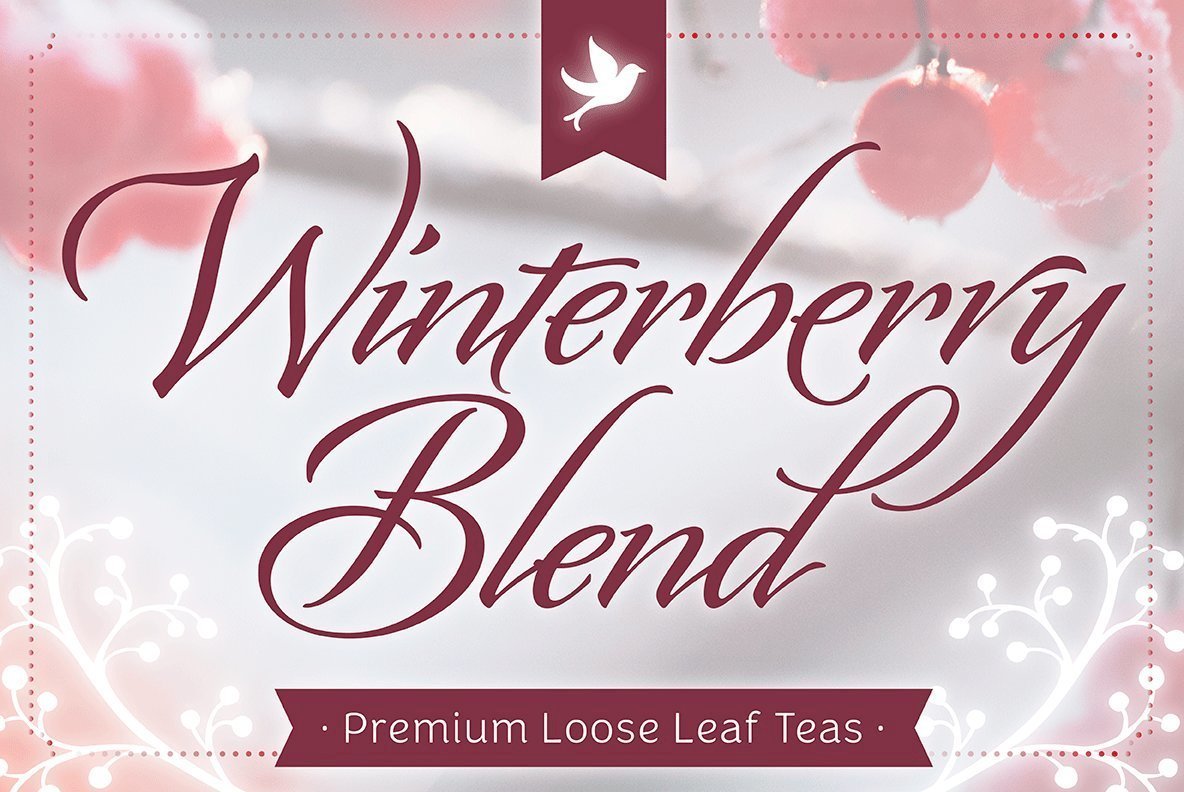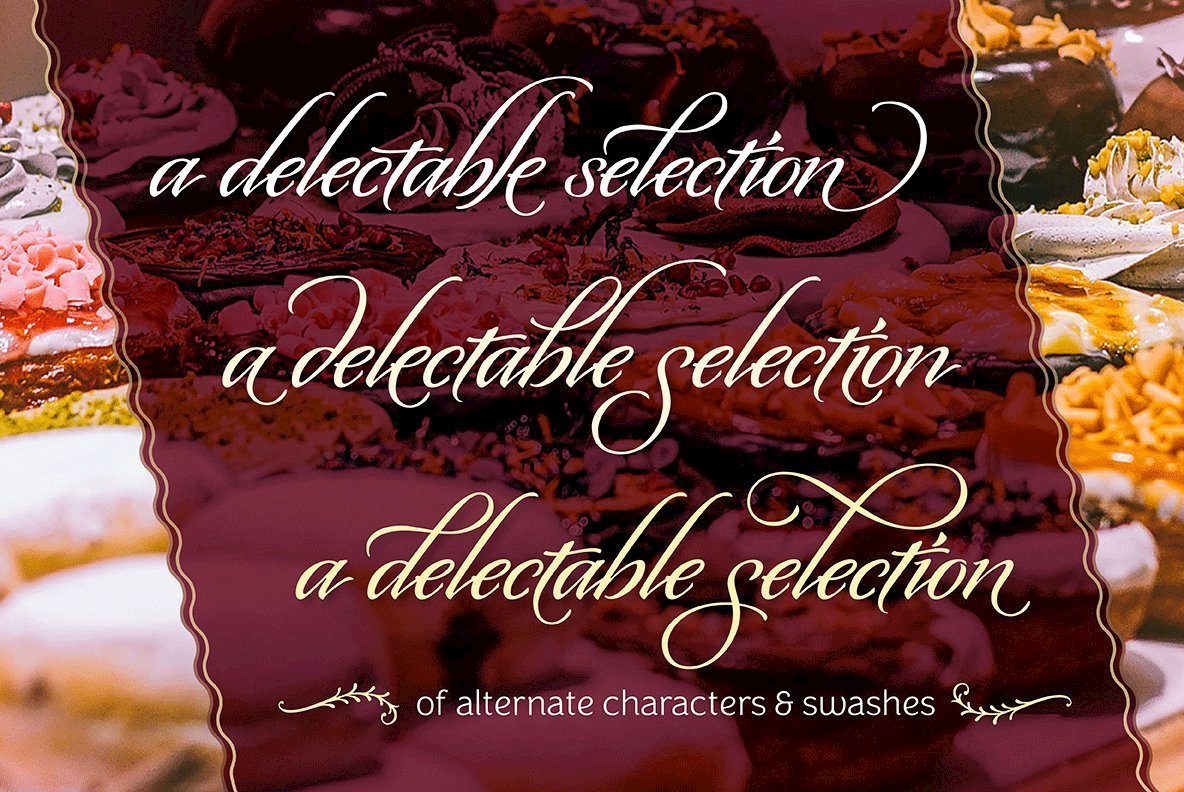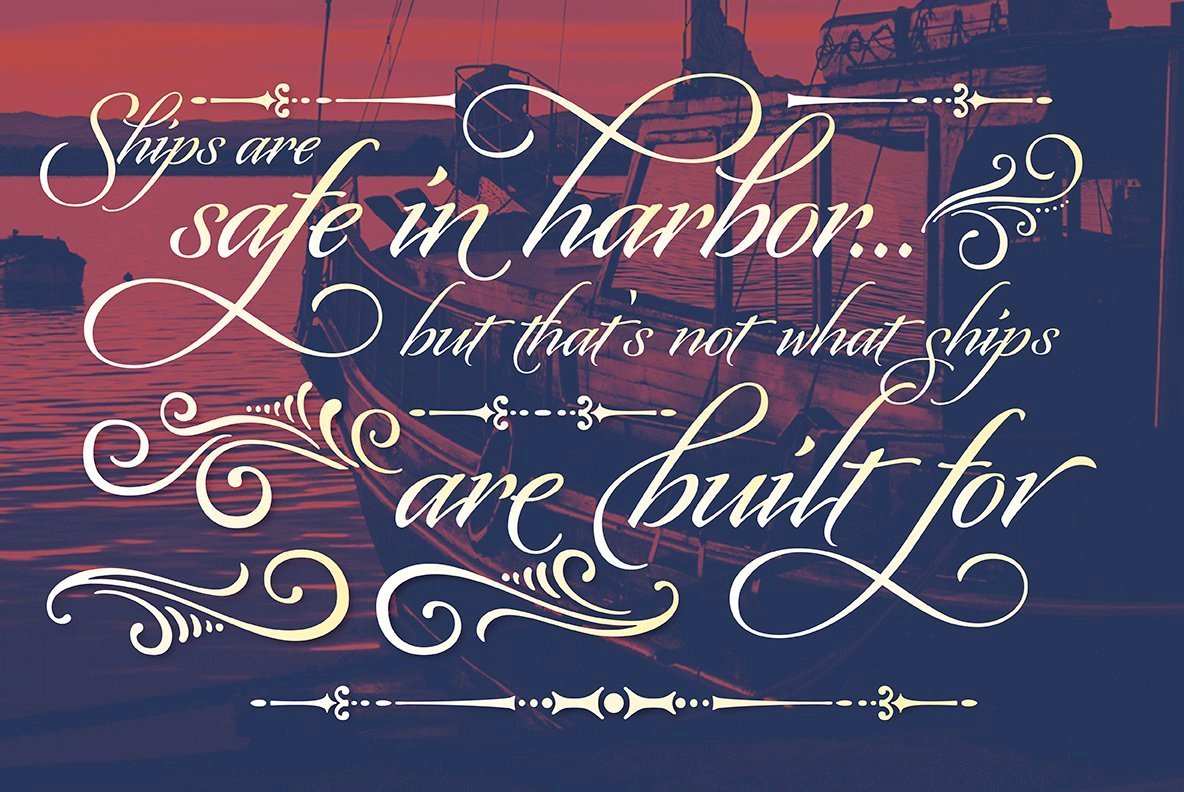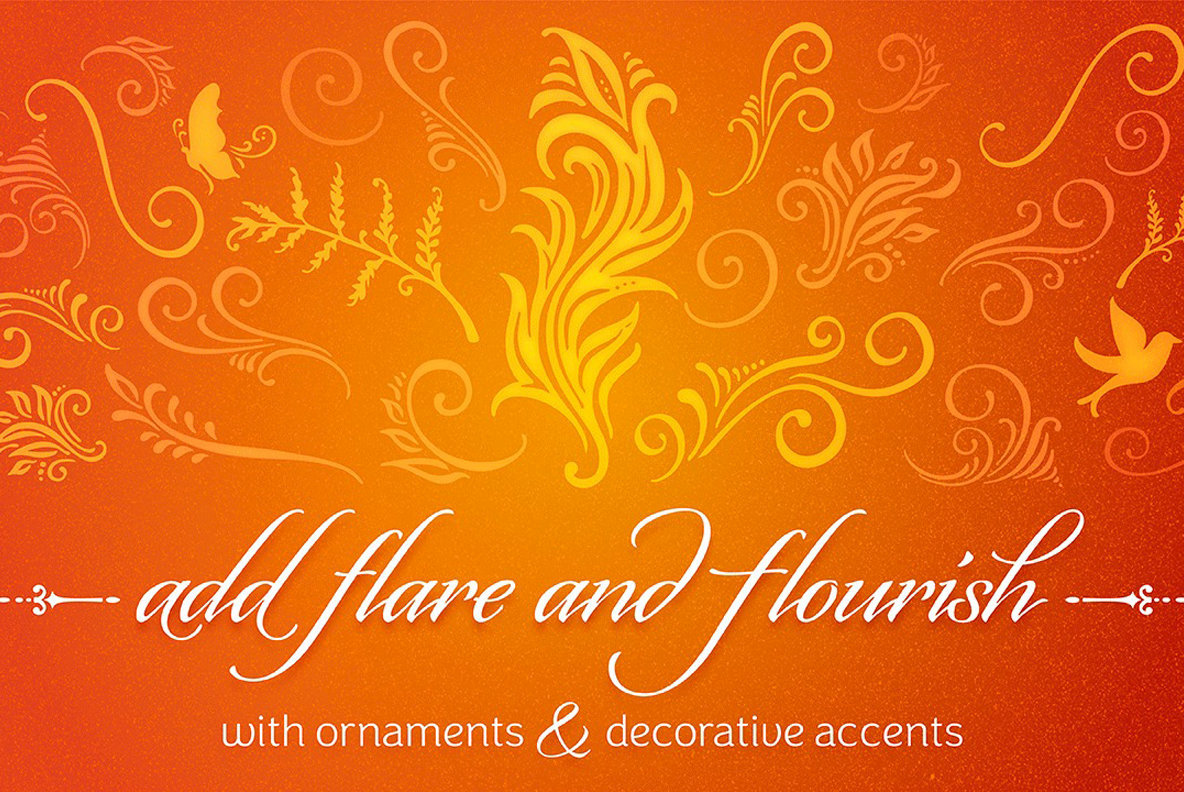
Origins Smooth Font
Origins Smooth Regular
Based on letters hand-drawn with a crow quill on parchment paper, Origins combines calligraphic grace and antique ambiance. Its tight, energetic angularity can be complemented with swooping swash capitals, alternate ascending and descending letterforms, and graceful ending characters. Origins sings in settings related to food and wine, celebrations, travel, and history.
• 120 swashes and alternate letterforms
• 20 ornaments
• 8 ligatures